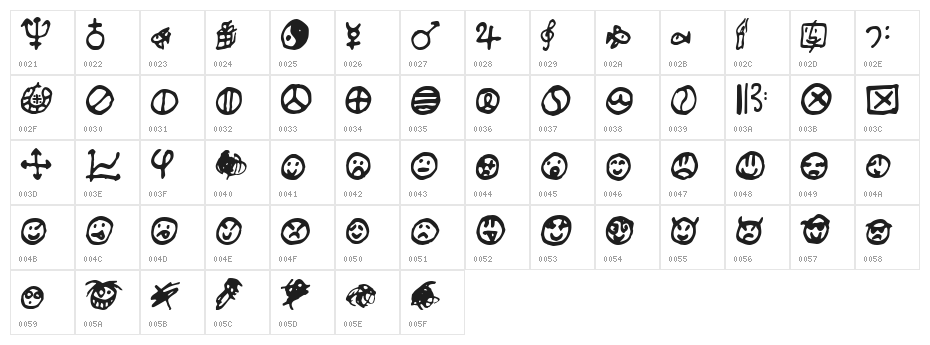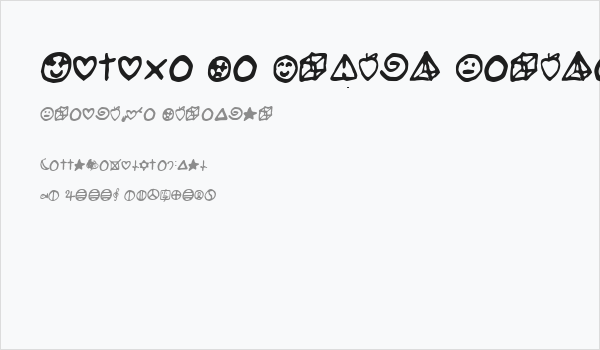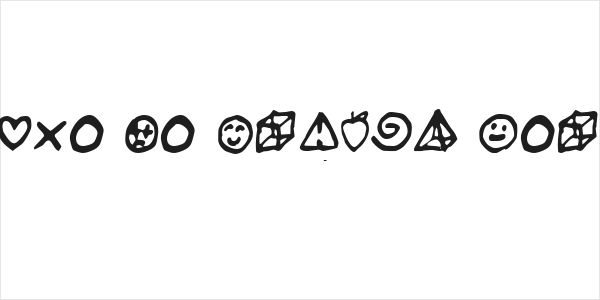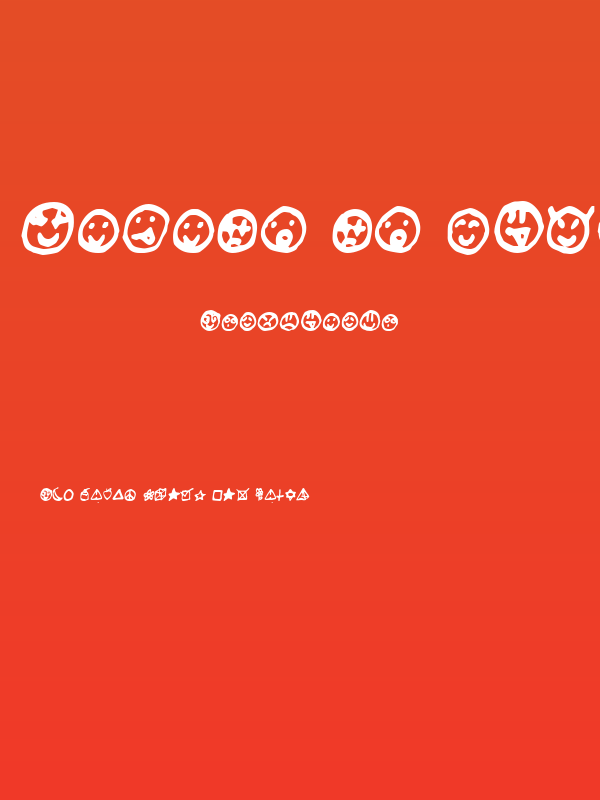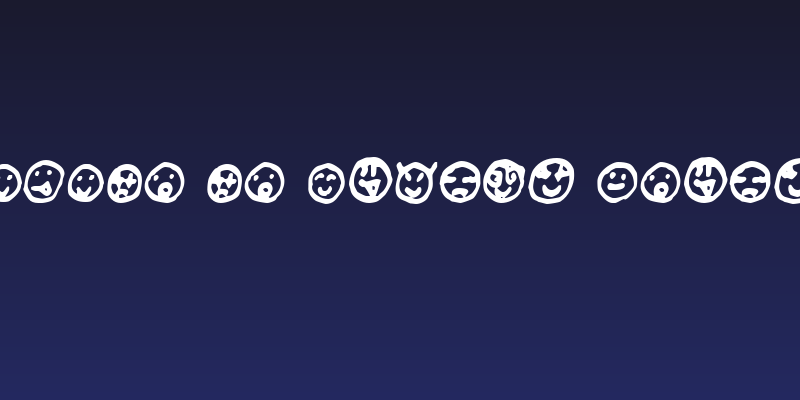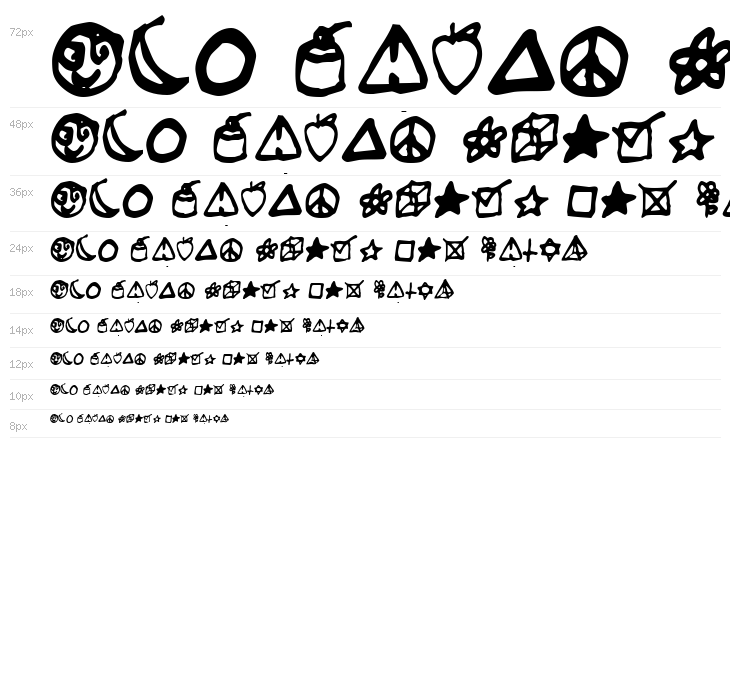
Salade De Fruits Cerise Font
Salade De Fruits Cerise Description
This is not a traditional font but rather a collection of expressive and playful symbols. Each character is a unique emoticon or symbol, ranging from smiley faces to abstract shapes and icons. The style is bold and hand-drawn, giving it a whimsical and artistic feel. The characters are highly stylized, with thick strokes and a variety of shapes that convey different emotions and concepts. This set is more suited for decorative purposes rather than textual content, as it does not follow the standard alphabetic or numeric structure.
| Use Case | Logos, Posters, Digital Art |
| Proposed Projects | Ideal for creative projects like greeting cards, posters, or digital art where expressive symbols are needed. |